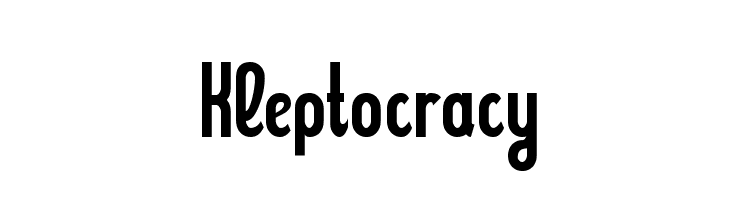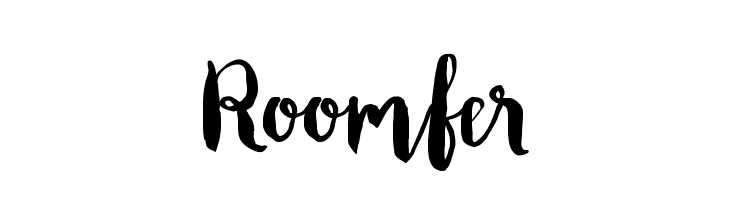
A bold, futuristic font with sharp angles and geometric shapes.
A high-contrast serif font with elegant, sharp serifs and a classic style.
A bold, three-dimensional serif font with a vintage yet modern appeal.
A dynamic, calligraphic font with sharp, angular strokes and expressive flourishes.
A bold, shadowed serif font with a classic yet modern appeal.
A bold, playful font with a three-dimensional shadow effect.
A bold, 3D geometric font with a futuristic and dynamic style.
A bold, high-contrast font with angular serifs and smooth curves, perfect for striking headlines.
A dotted line font mimicking handwriting practice sheets, ideal for educational use.
A modern, geometric font with mechanical elements and bold, angular letters.
A futuristic, gradient-style font with dynamic horizontal lines.
A bold, handwritten font with a playful and friendly style.
A playful and casual script font with smooth, flowing curves and a hand-drawn aesthetic.
A playful, whimsical serif font with a touch of elegance.
A bold, geometric font with a futuristic and modern design.
A bold, expanded italic font with high contrast and modern appeal.
A bold, distressed font with a grunge texture and rugged appearance.
A bold, brush-style font with dynamic, energetic strokes.
A playful, bold, and condensed font with a hand-drawn, comic-like style.
A bold, blackletter-inspired font with sharp, angular lines and a medieval aesthetic.
A decorative and gothic font with sharp serifs and intricate details.
A playful, rounded font with bold, smooth curves and even spacing.
A bold, cursive script font with a fluid, handwritten style.